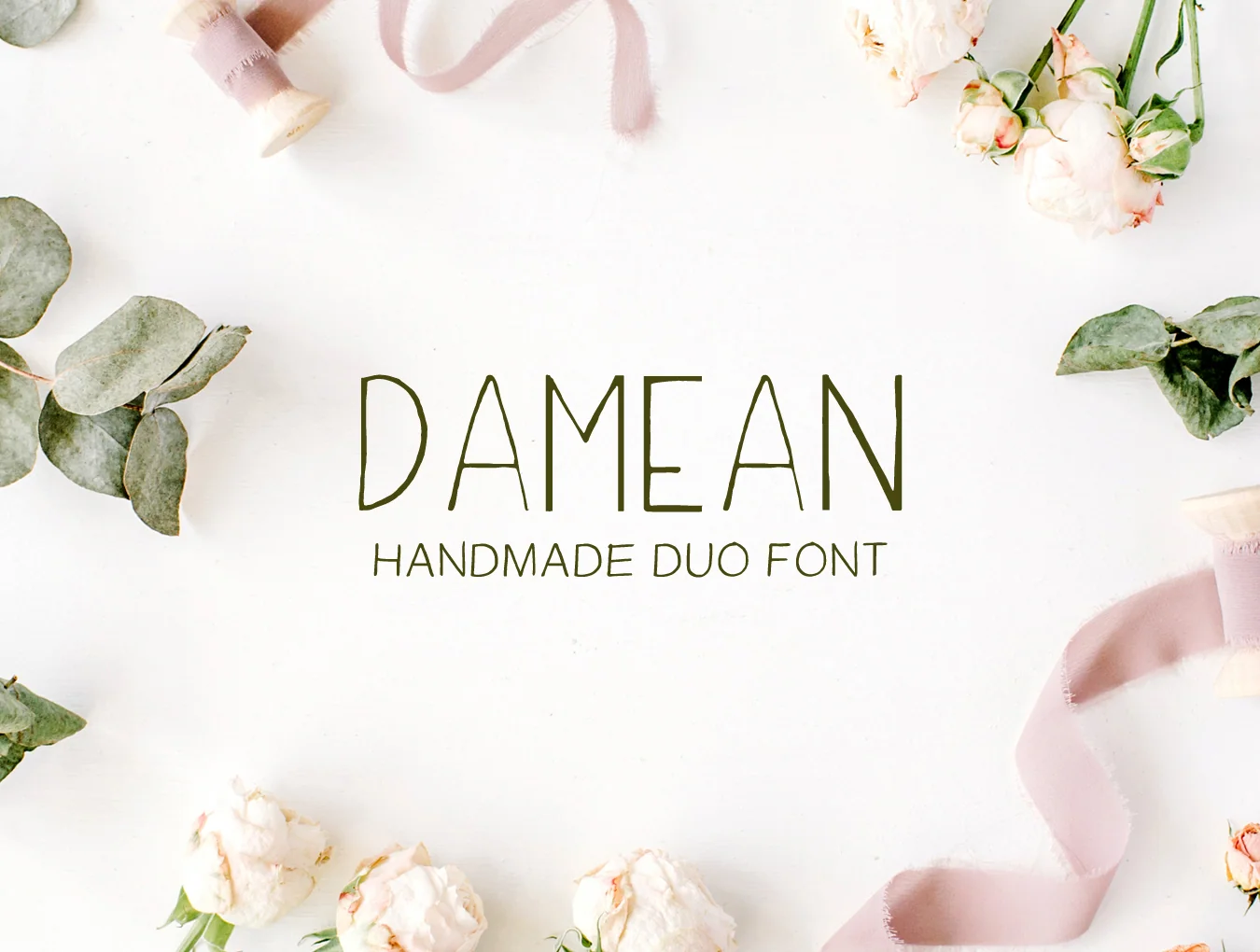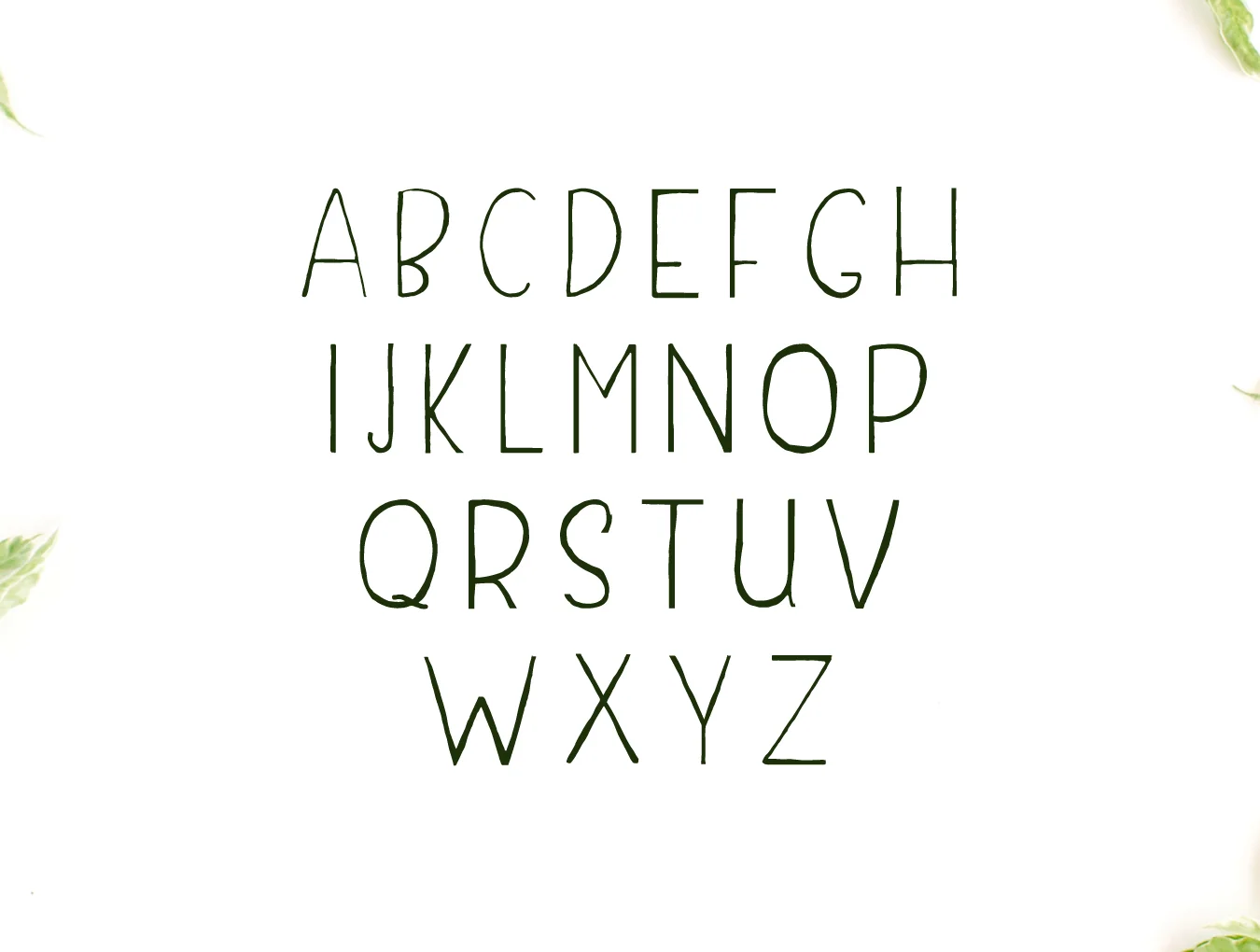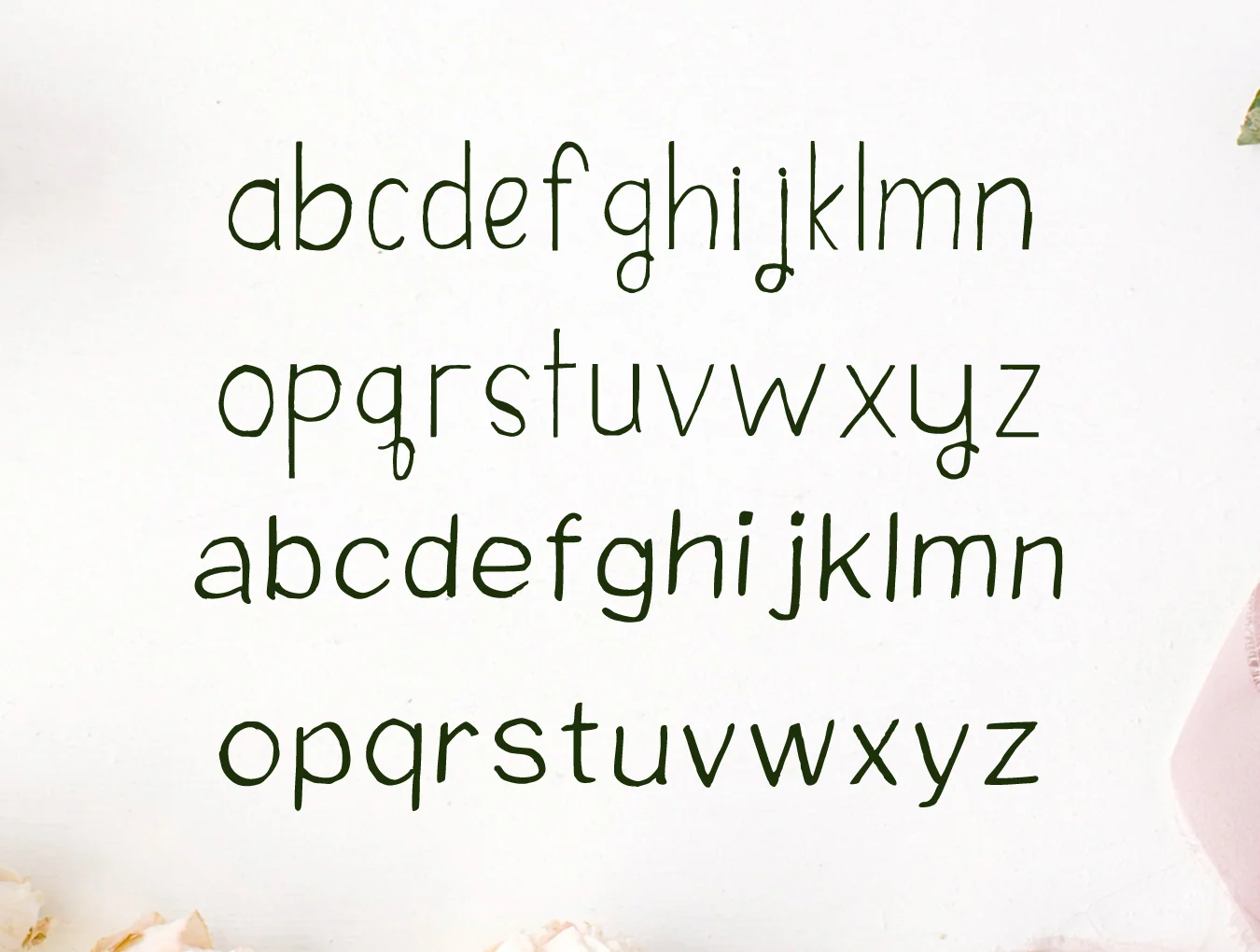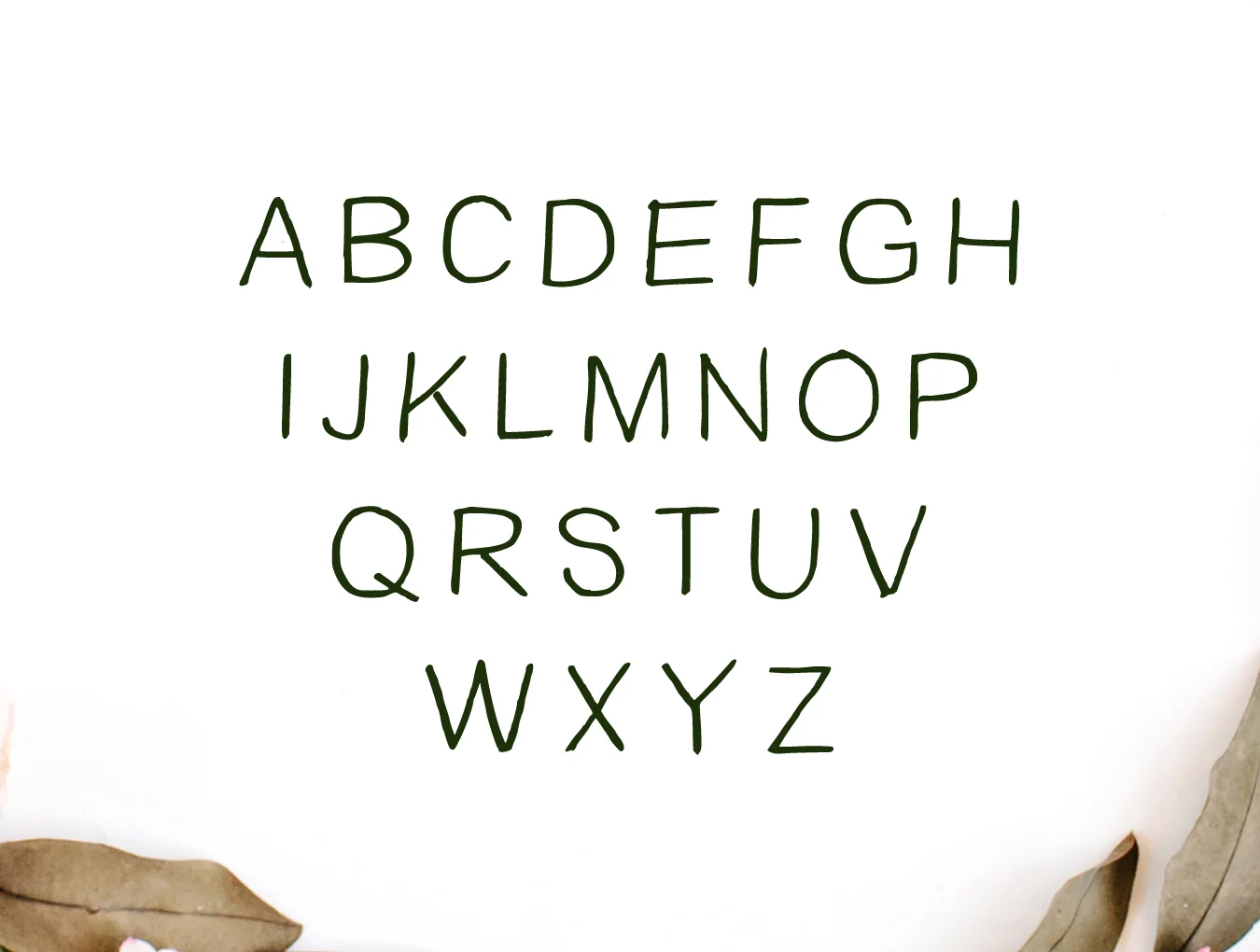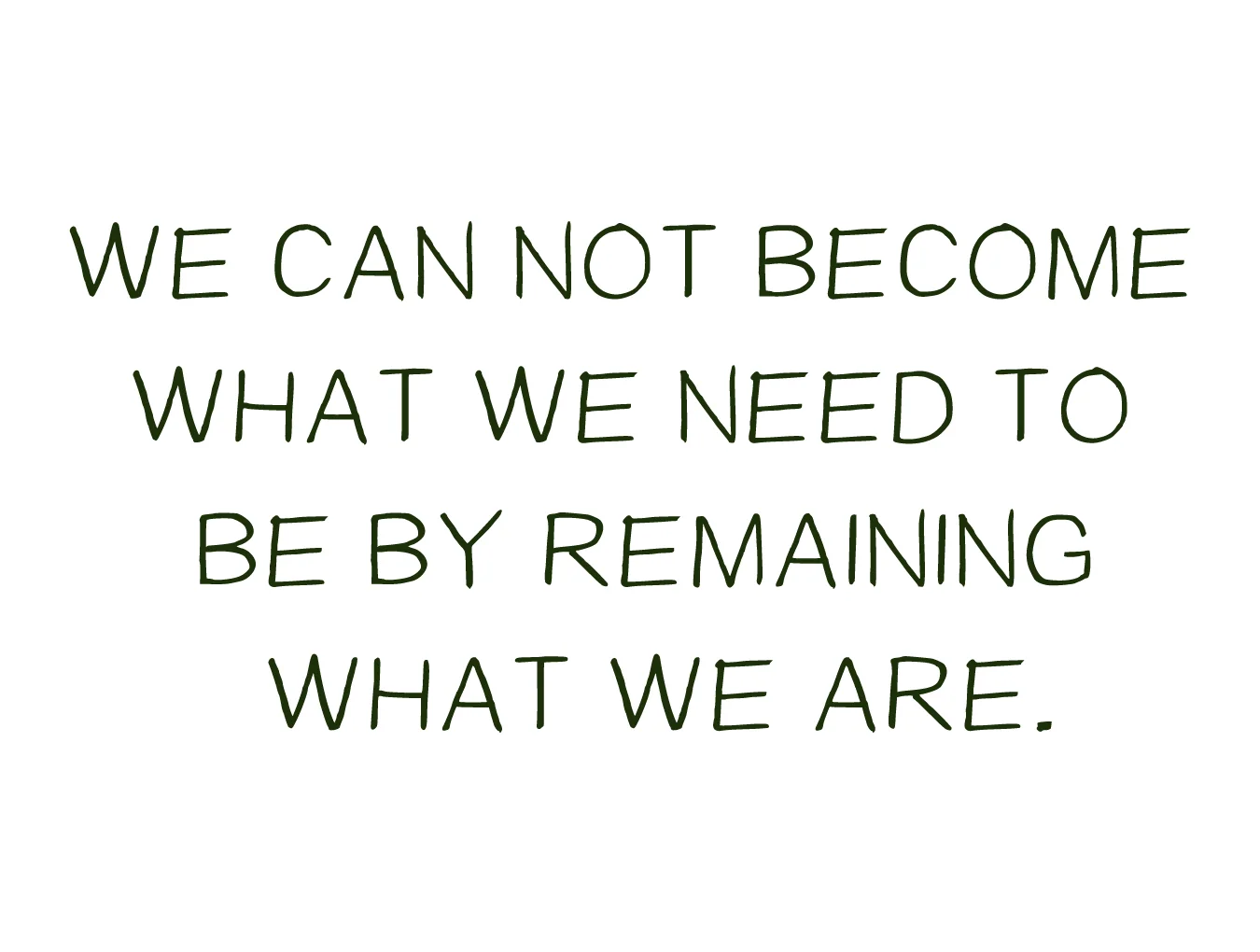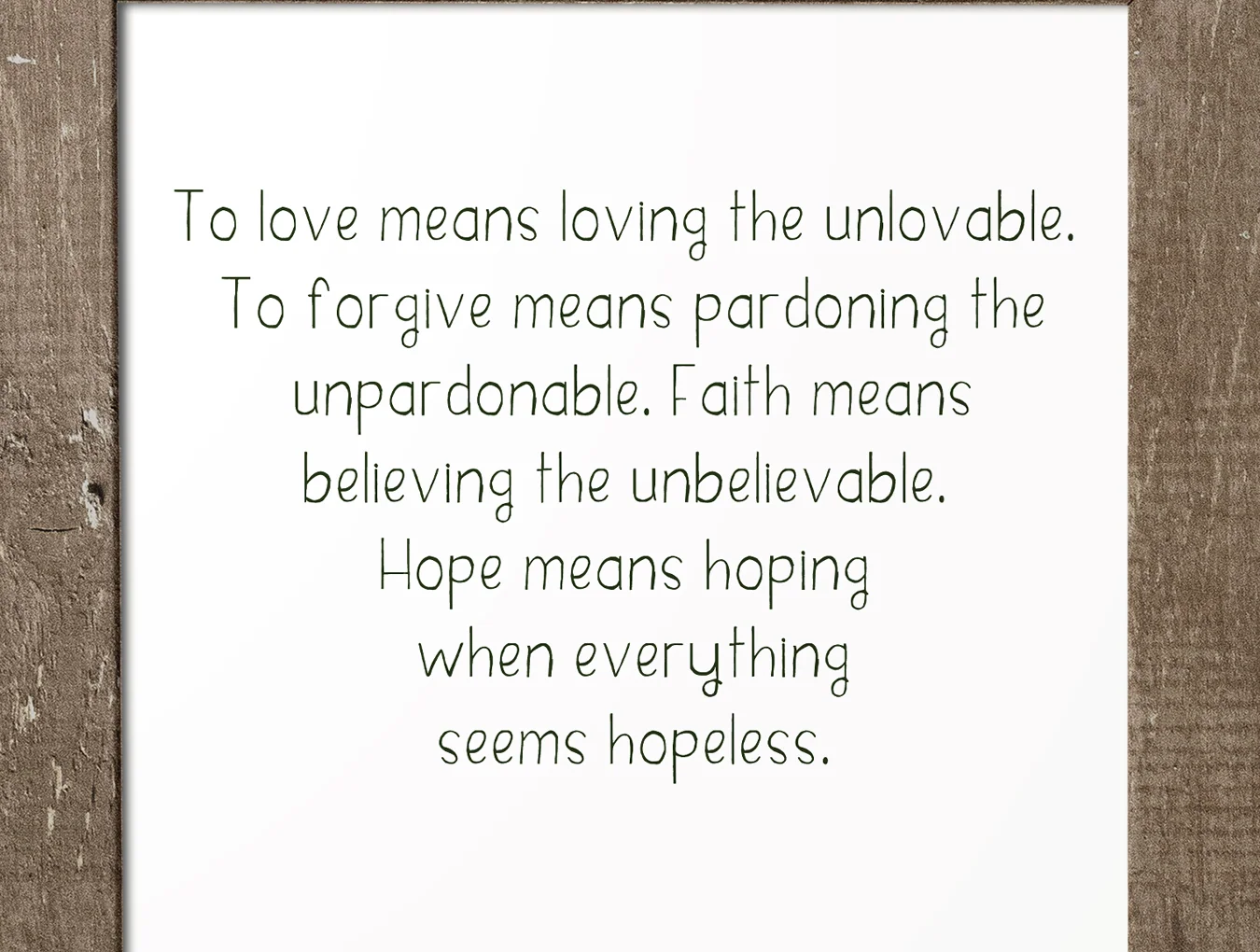
Damean Duo Font
Damean handcrafted duo serif typeface
Clean sans-serif style
Dalphina with 129 characters
Damean with 151 characters
Standard regular weight
Damean is a fresh, stylish handwritten duo font featuring full uppercase and lowercase letters, numbers, and alternate characters. Ideal for logos, prints, quotes, badges, labels, packaging, blogs, websites, headlines, banners, posters, T-shirts, magazines, promos, templates, and more.